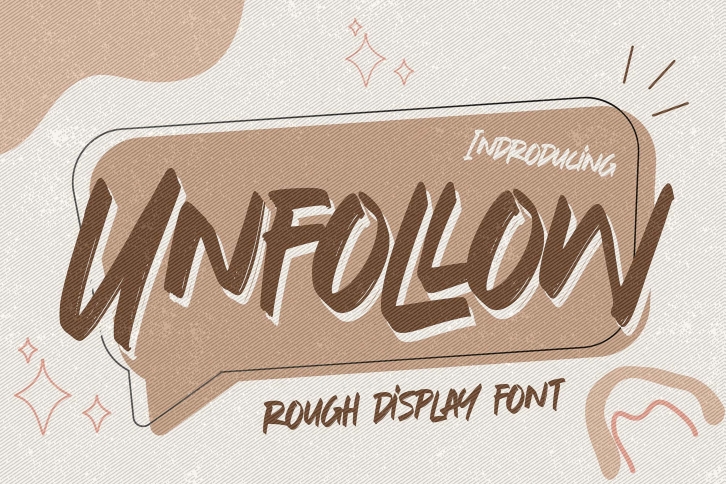
Unfollow is a cool, brushed display font. It is adaptable and friendly and it will easily fit into a great deal of designs. The only limit is your imagination.